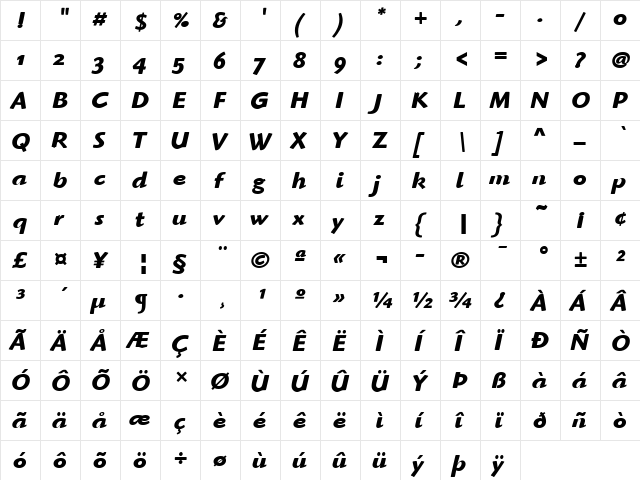
Highlander ITC Bold Italic
Design Context for Highlander ITC Typeface
Highlander ITC takes a measured approach to typography — its balanced proportions and neutral character make it a reliable workhorse for both digital and print work. Its italic angle brings a sense of urgency and motion to the letterforms. The heavy weight commands attention and anchors typographic hierarchies.
Pro Tip: Use Highlander ITC for emphasis, pull quotes, and subheadings where its slanted energy can add rhythm to the layout.